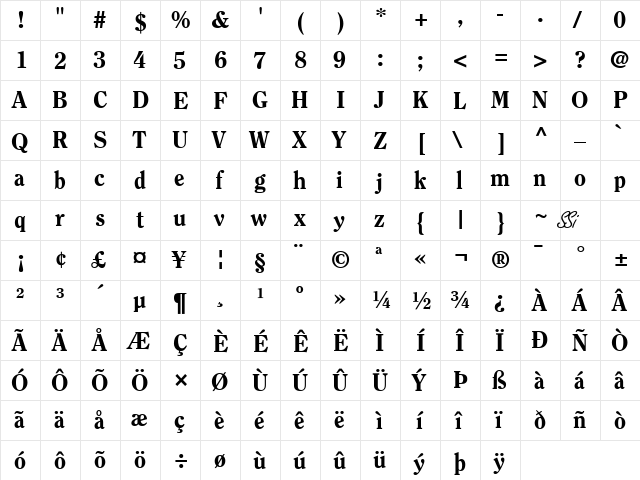
Clearface Black SSi Extra Bold Font Preview
Clearface Black SSi Extra Bold
Design Context for Clearface Black SSi Typeface
Clearface Black SSi offers clean, dependable letterforms without strong stylistic allegiance, making it a practical choice for designers who need flexibility. The heavy weight commands attention and anchors typographic hierarchies.